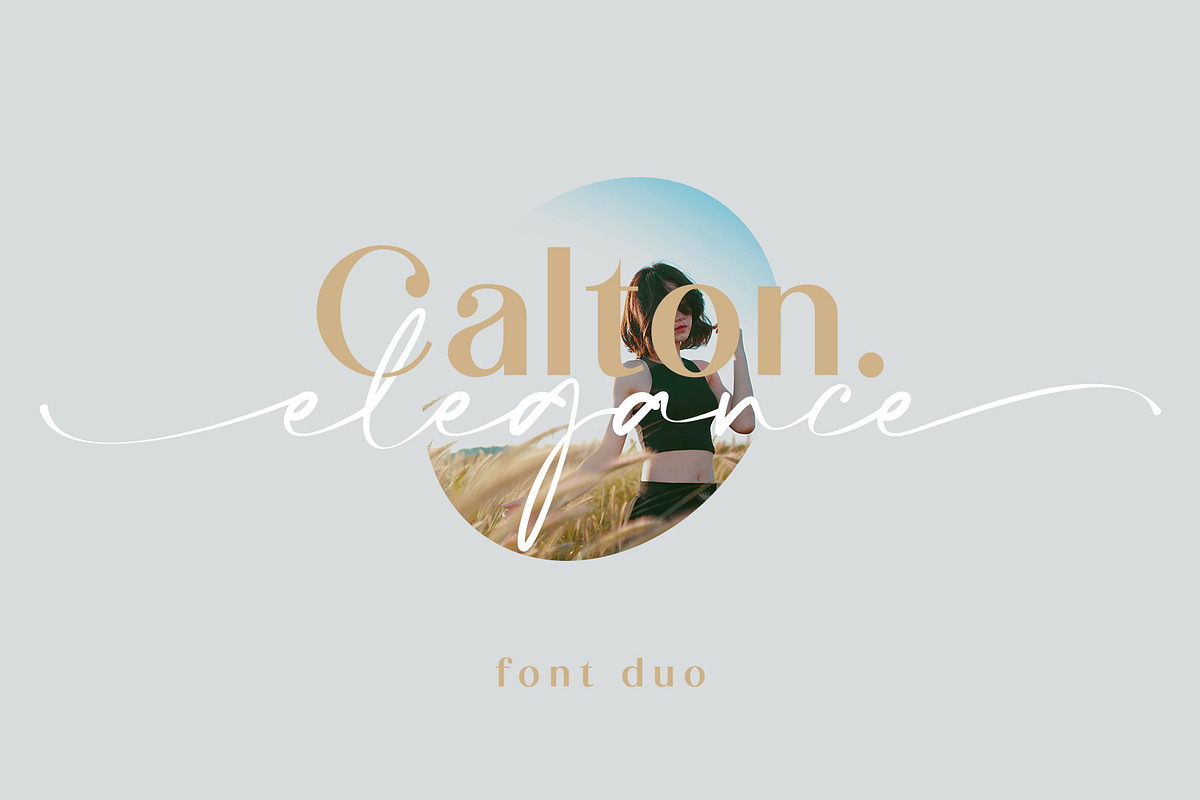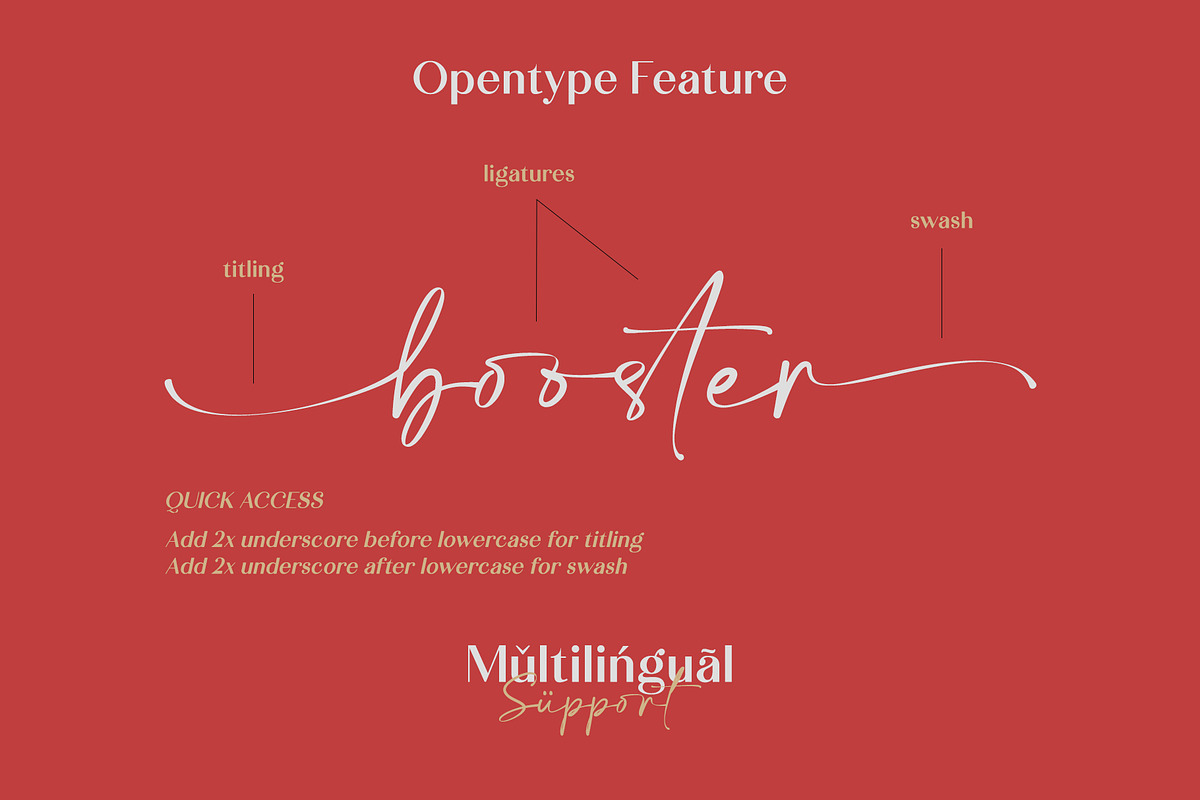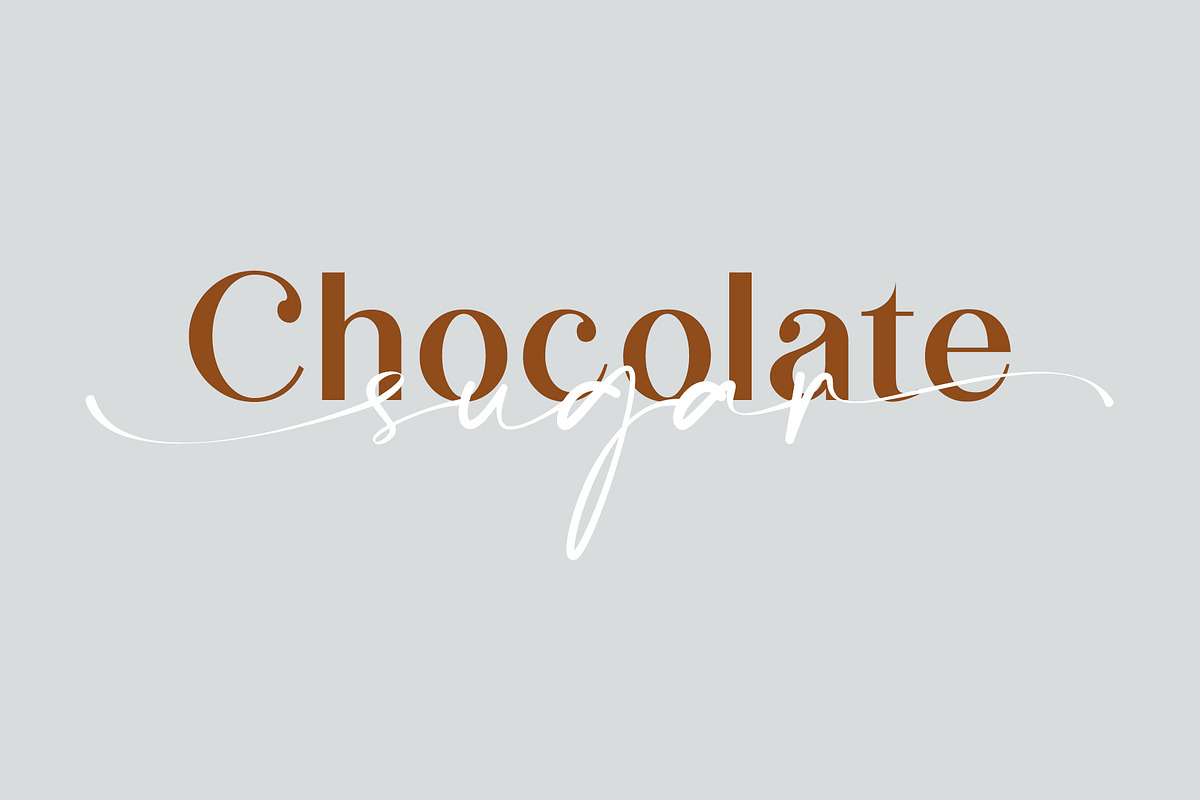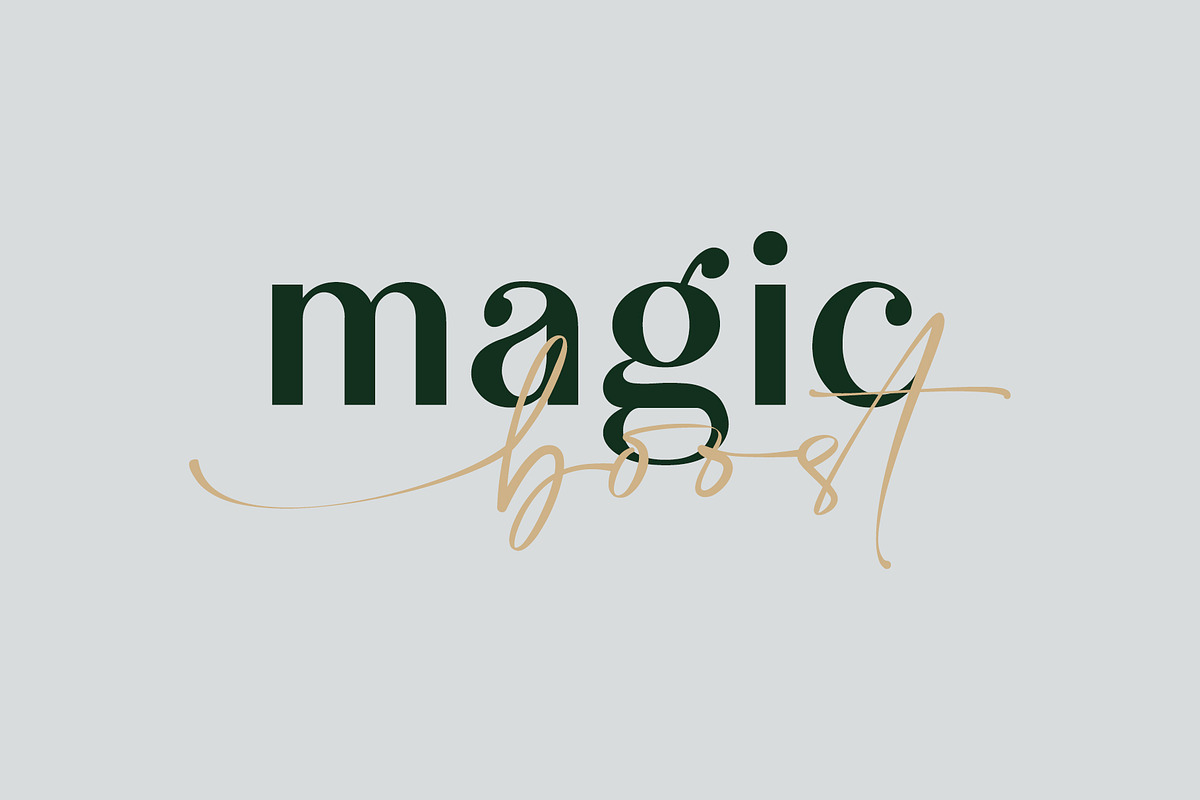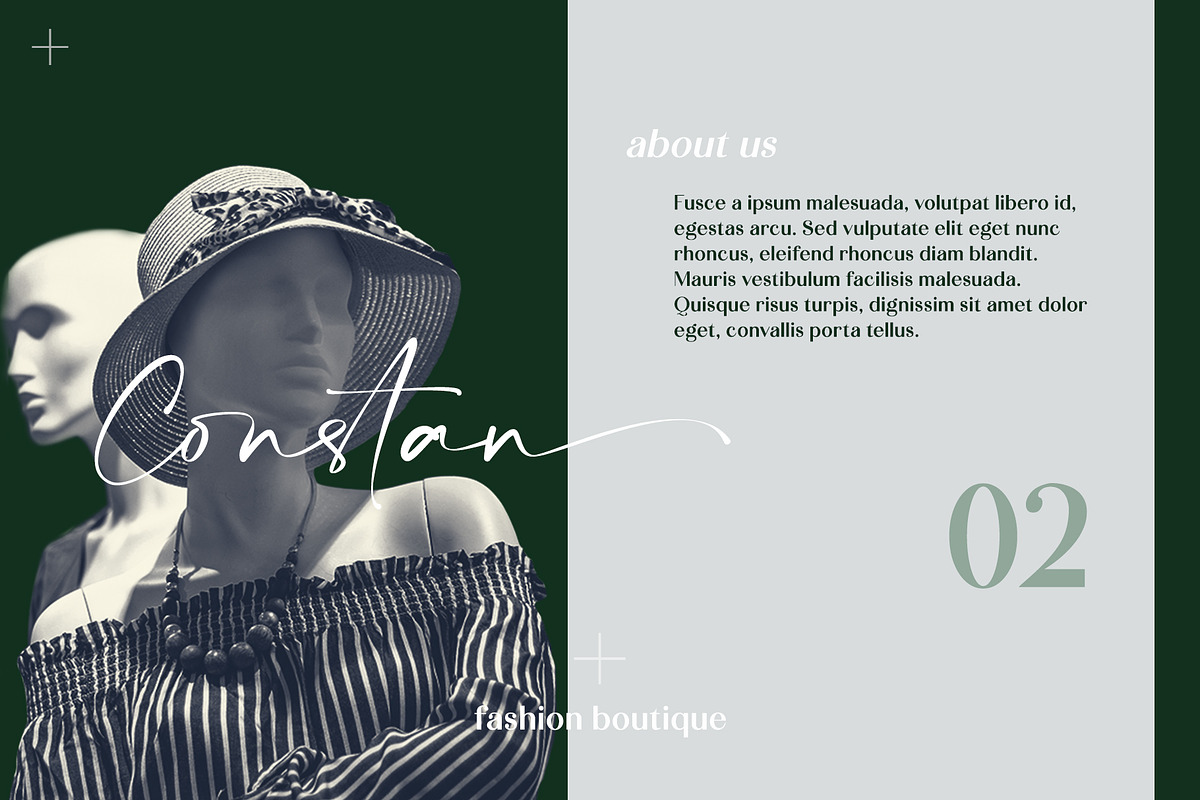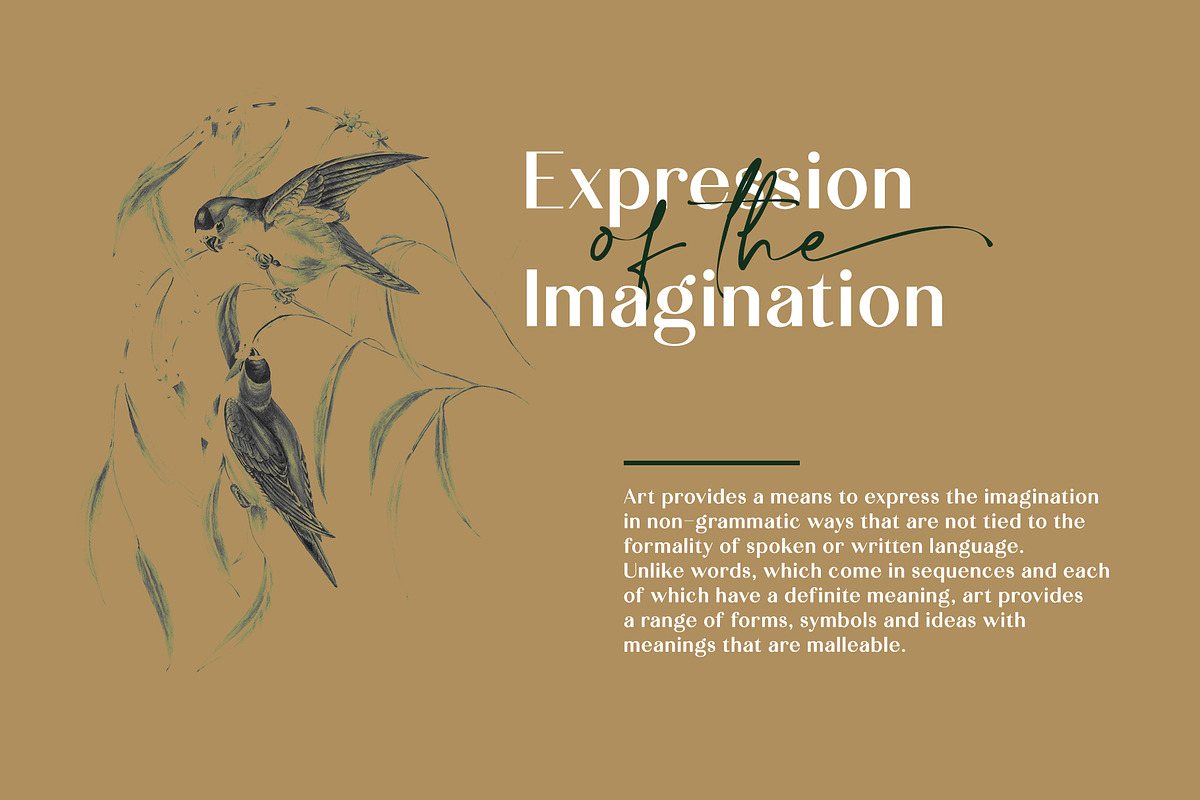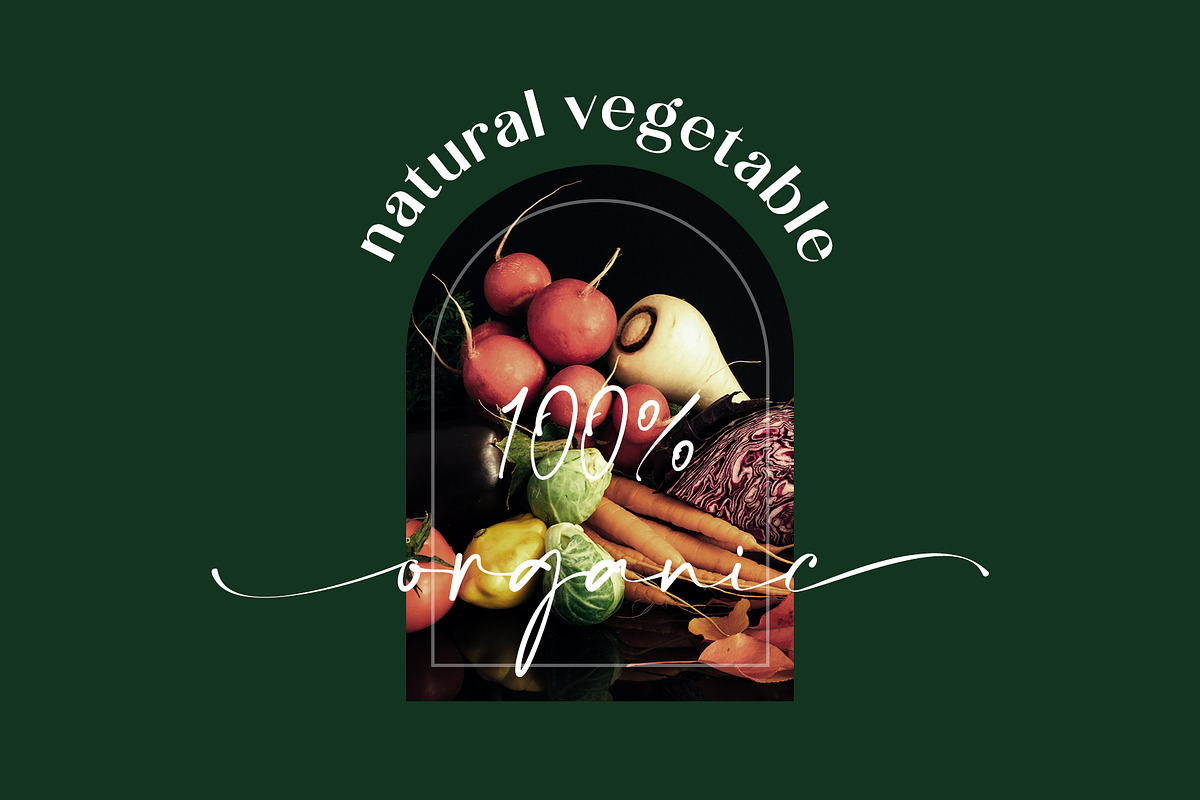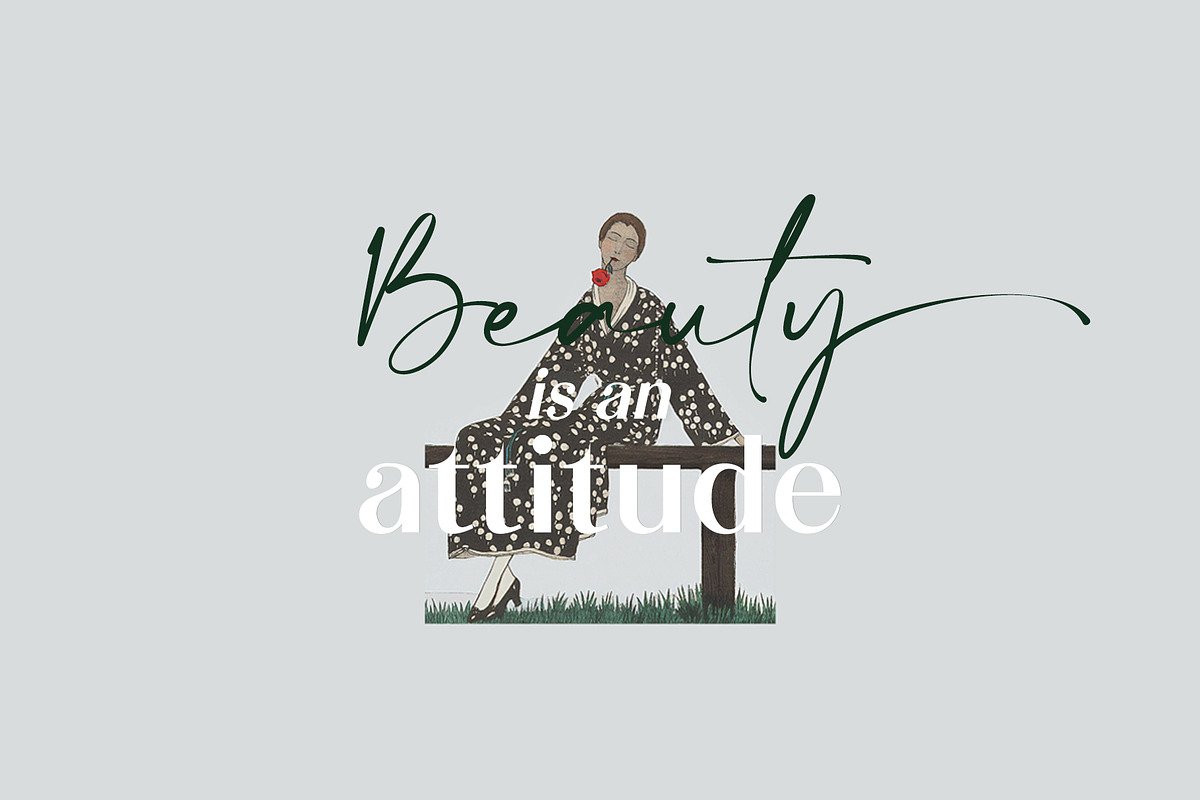
Calton Elegance | Font Duo
Calton Elegance is a perfect mix modern calligraphy and sans-serif font. It was created to help you designing makes gorgeous logos, posters, wedding invitations, blog posts, social media, and more!
- Script + Sans Serif
- Titling
- Titling: Add 2x underscores before lowercase a-z
- Swash: Add 2x underscores after lowercase a-z